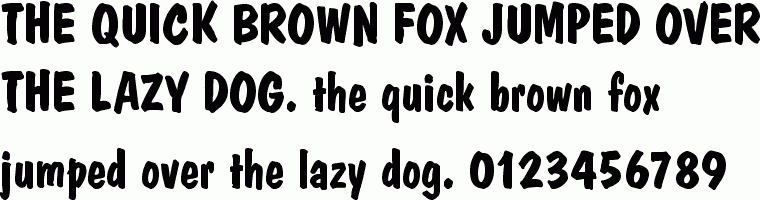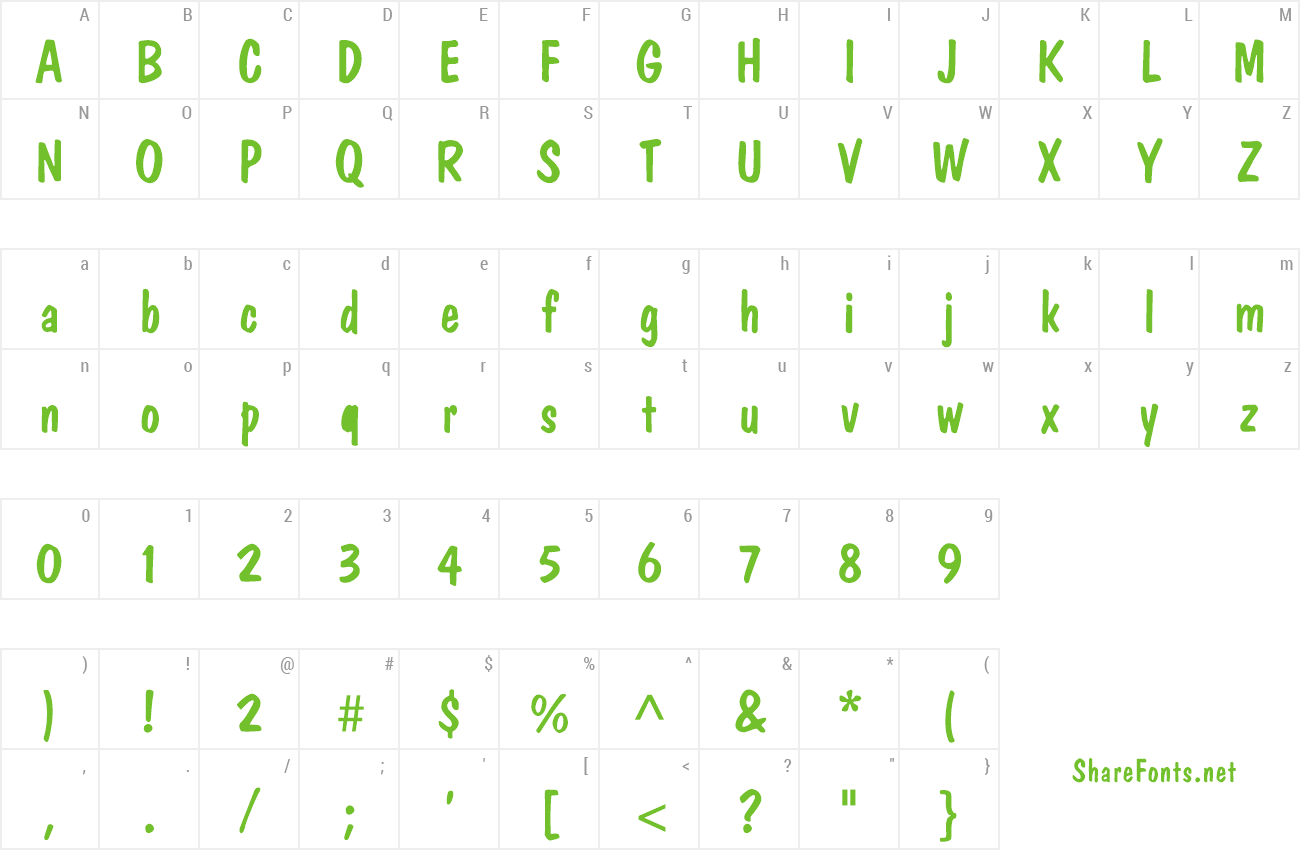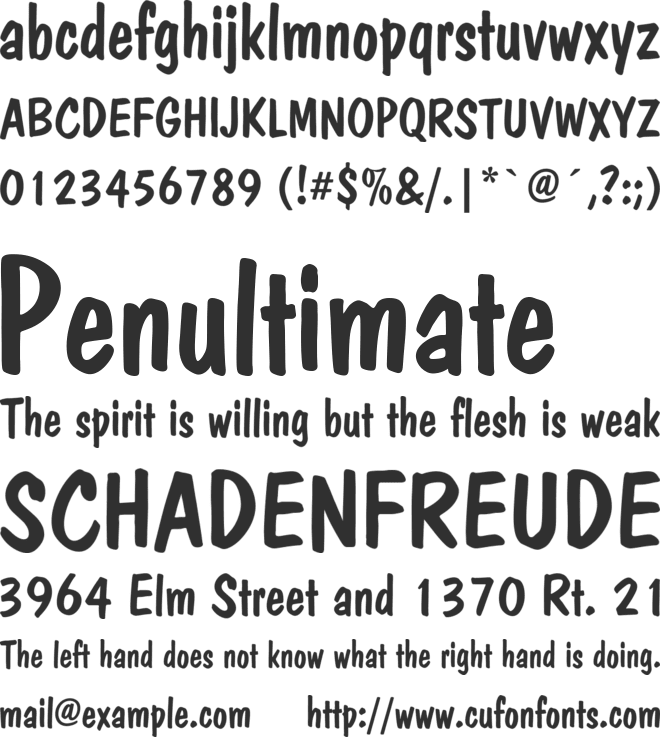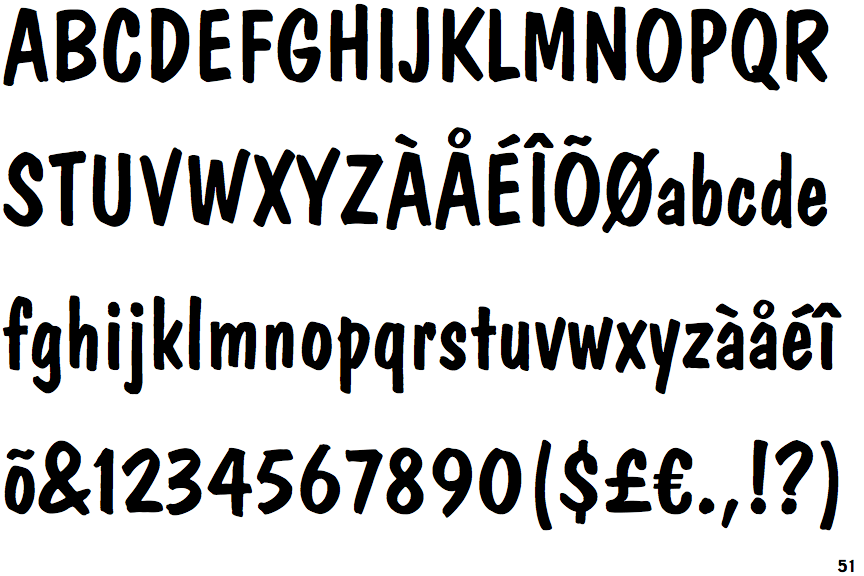
It was designed by pete dom in 1951 for american type founders. Dom casual is the perfect font for all your fun designs. Dom casual dc.ttf 57 kb | dom casual domcasual.ttf 40 kb | dom casual regular.ttf 55 kb | dom casual italic.ttf 52 kb |
Dom casual bold is free for personal use only. The font family is dom casual. Dom casual is a very condensed script, almost monotone, with irregular vertical strokes ending at different heights, and which suggests a freehand effect.